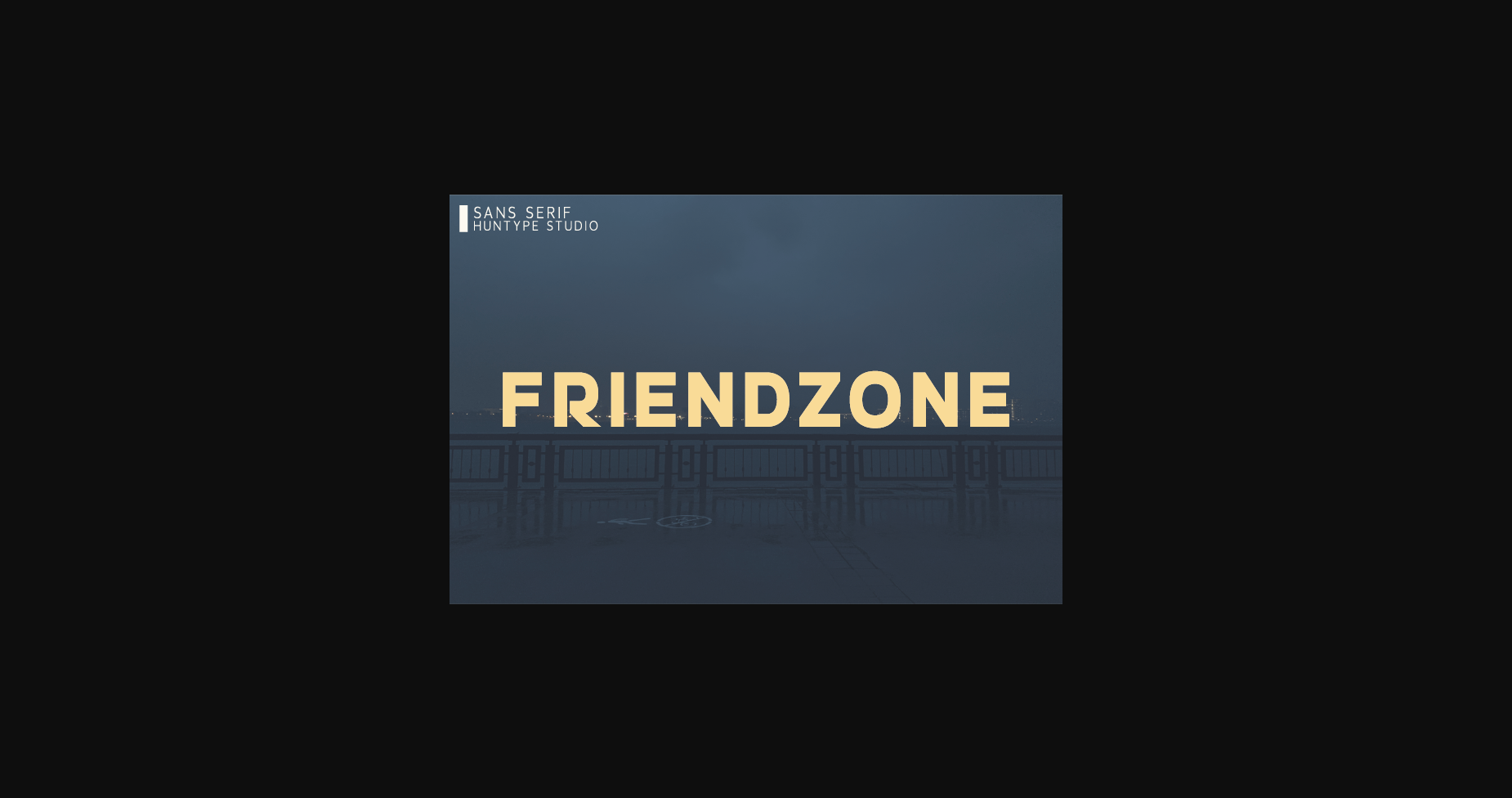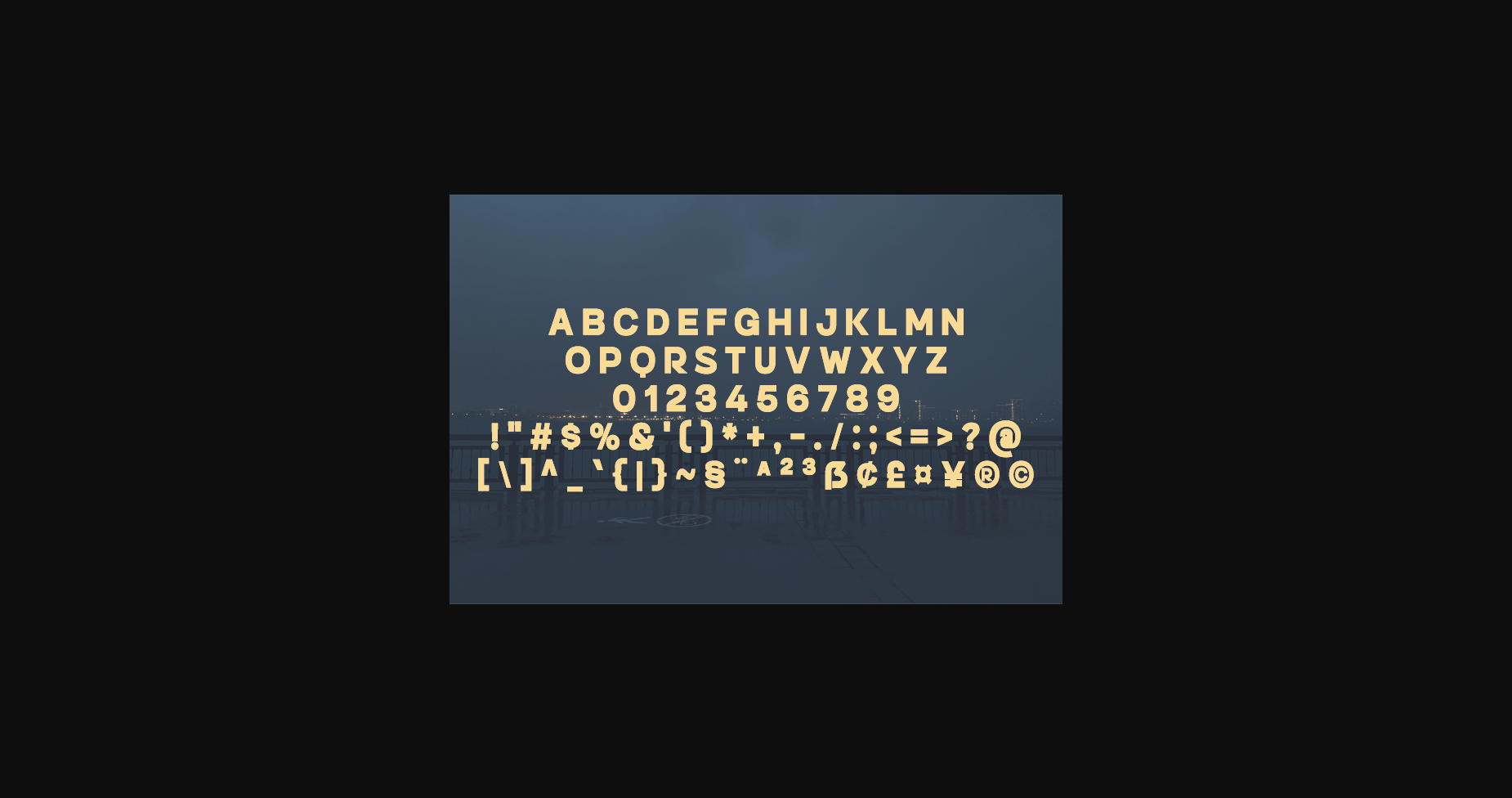
Friendzone Font
About Friendzone Font
Friendzone, this all-caps sans serif is so versatile and looks great in just about any context. With smooth and clean lines and just a touch of contrast, Versailles works beautifully for logos, branding, and web headings.